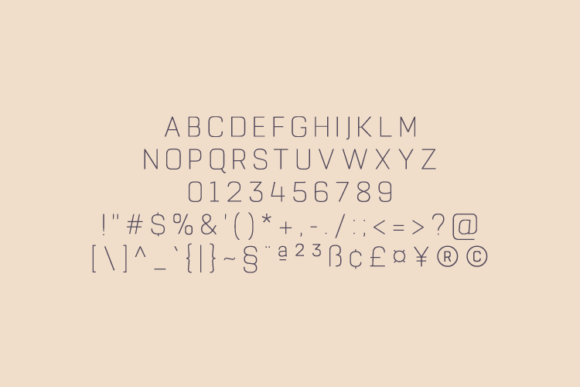
Introduction to Gercoff Extra Light Font
Gercoff is a clean and simple vintage sans serif font with smooth edges.
It’s perfect for vintage logo designs, headers and small amounts of text .